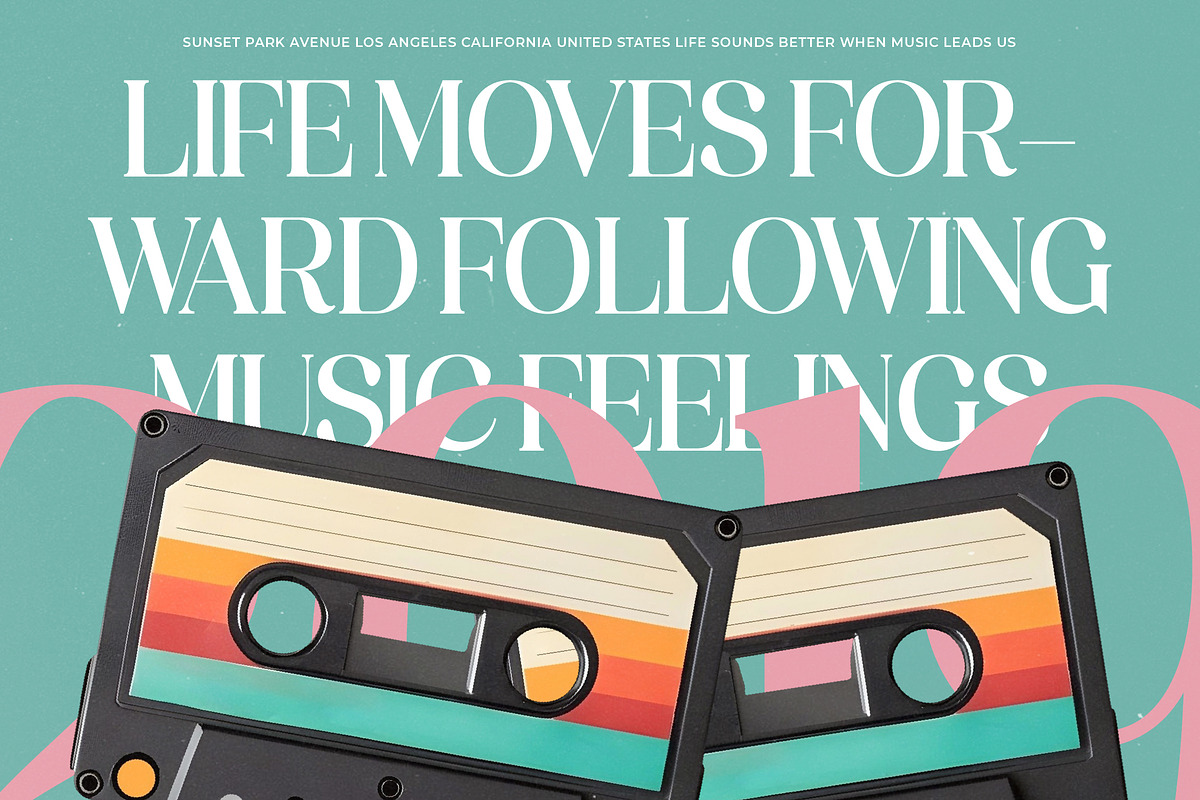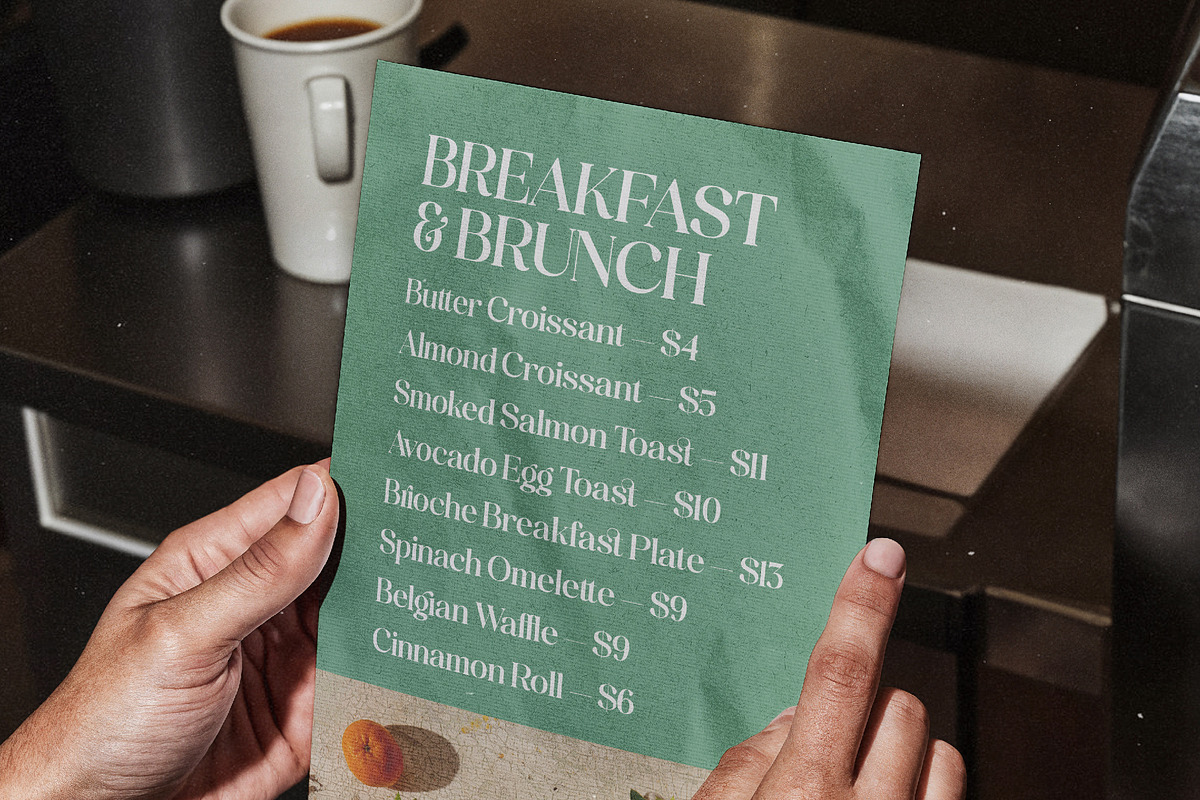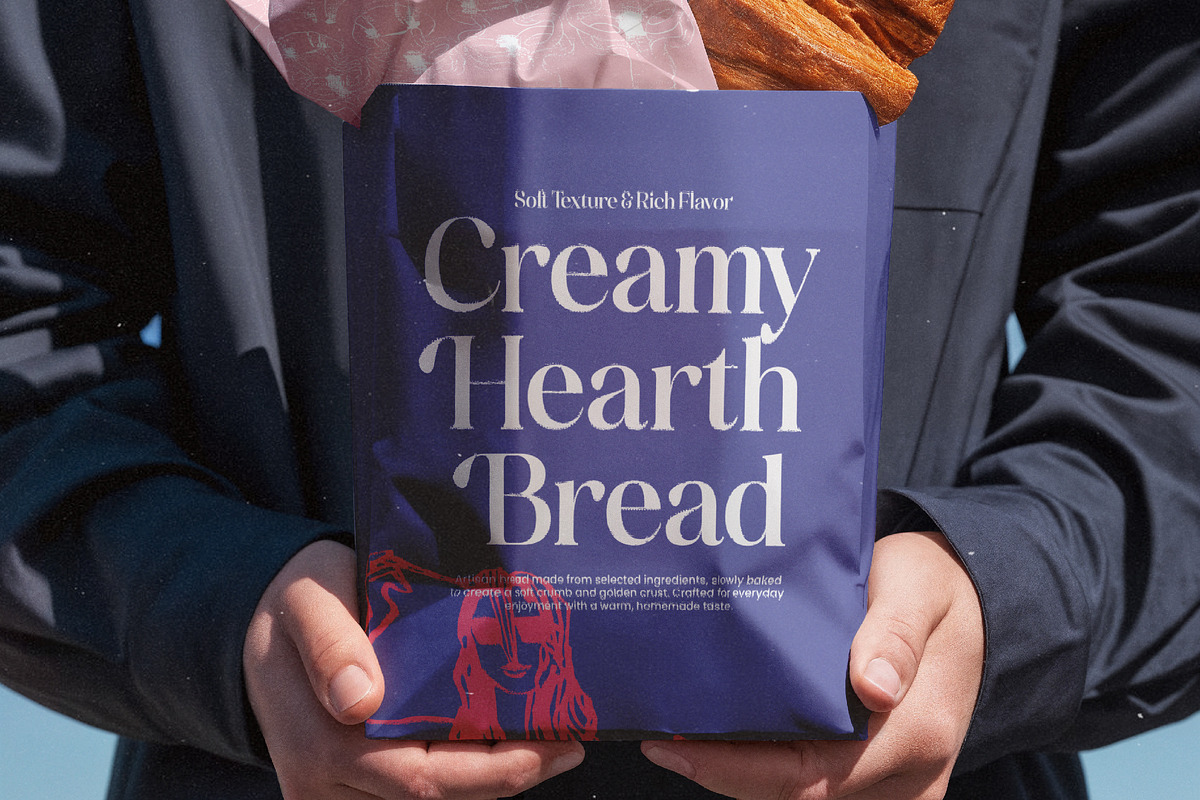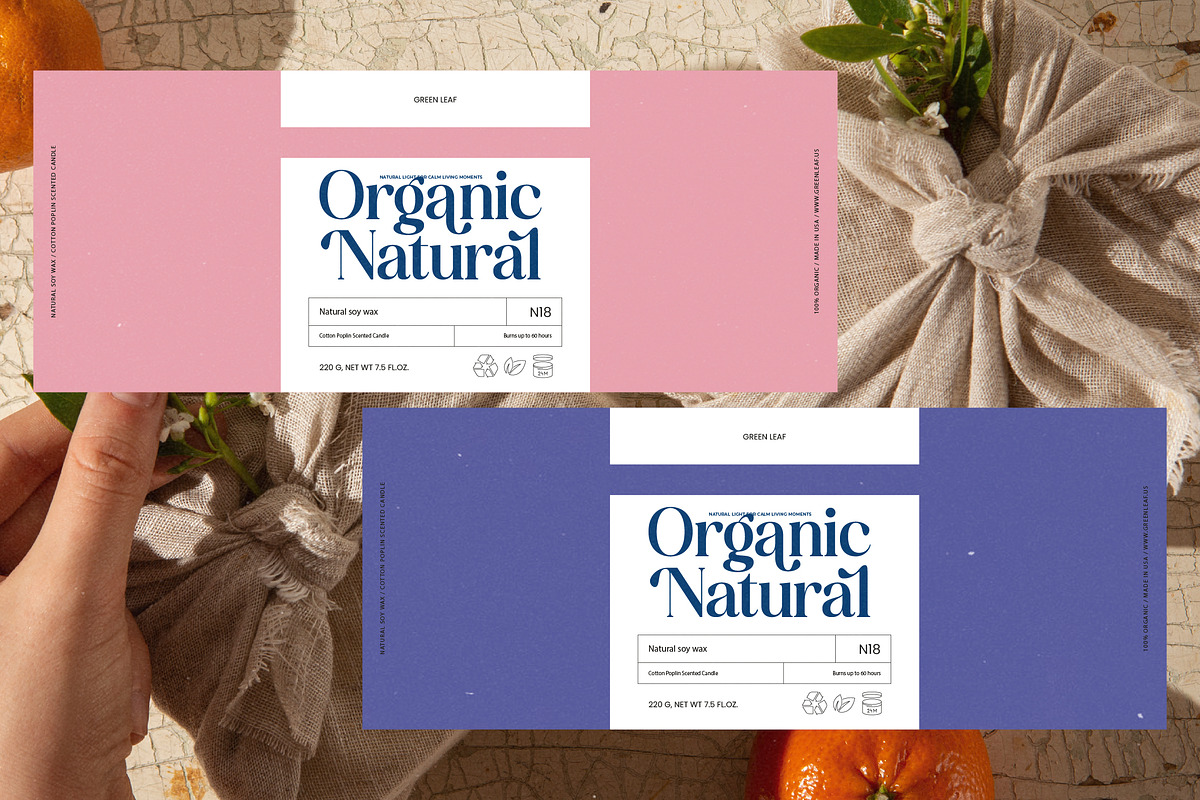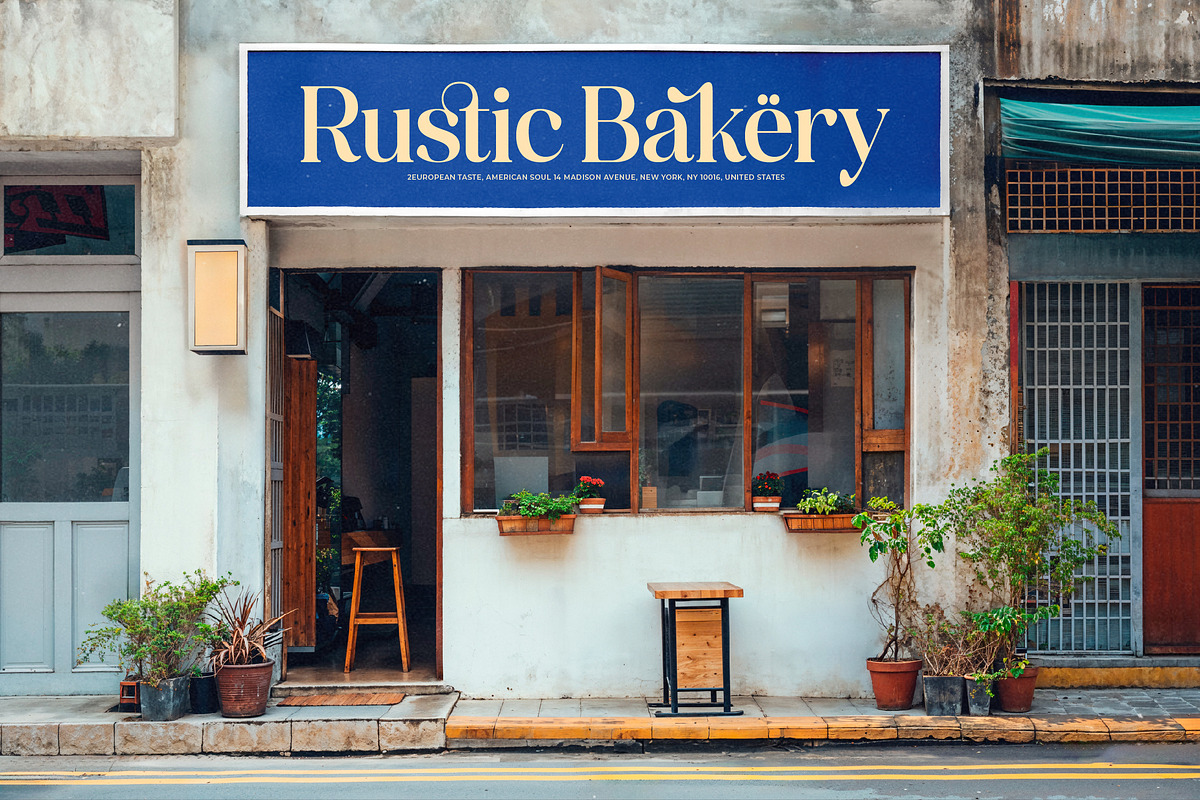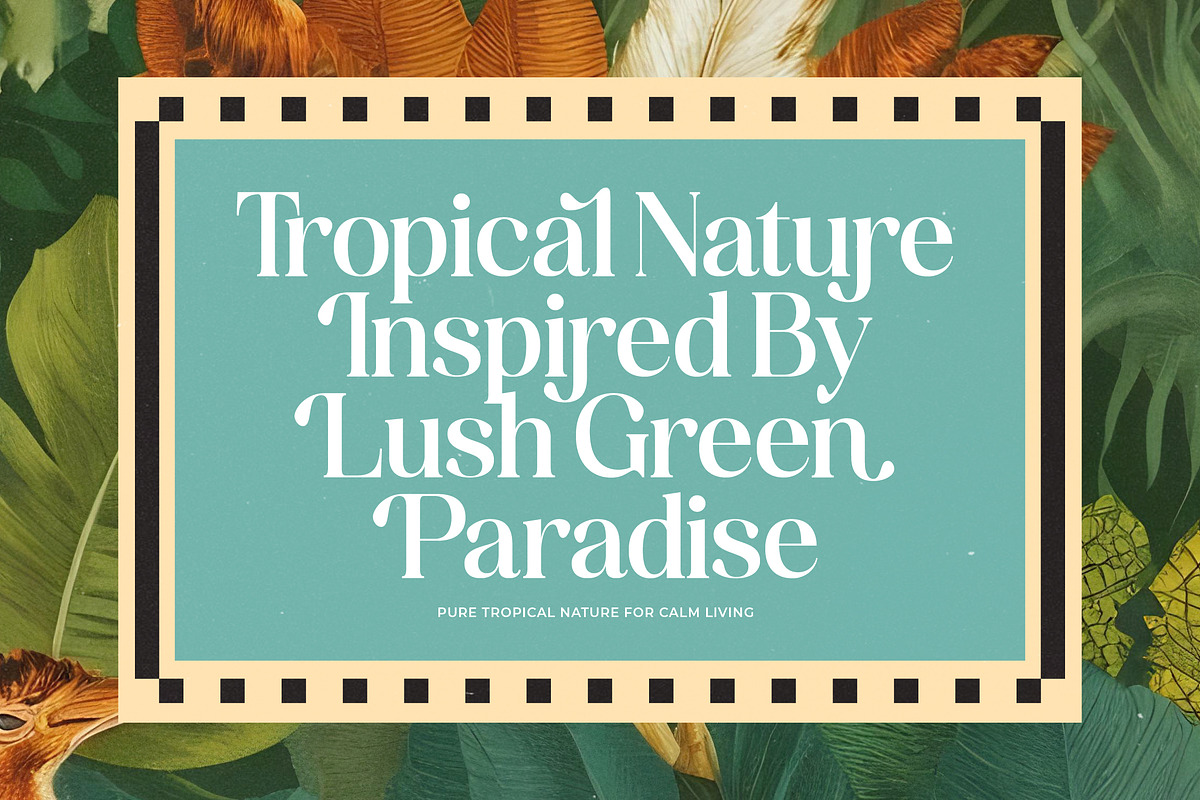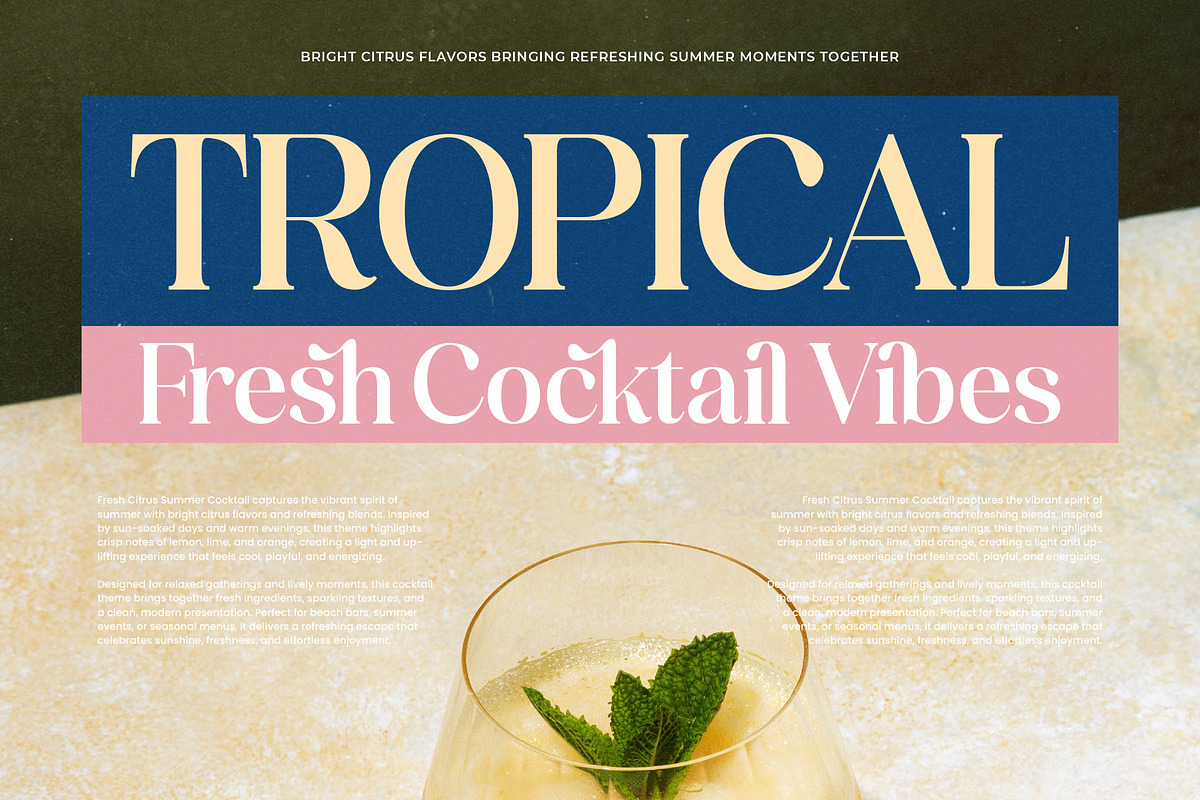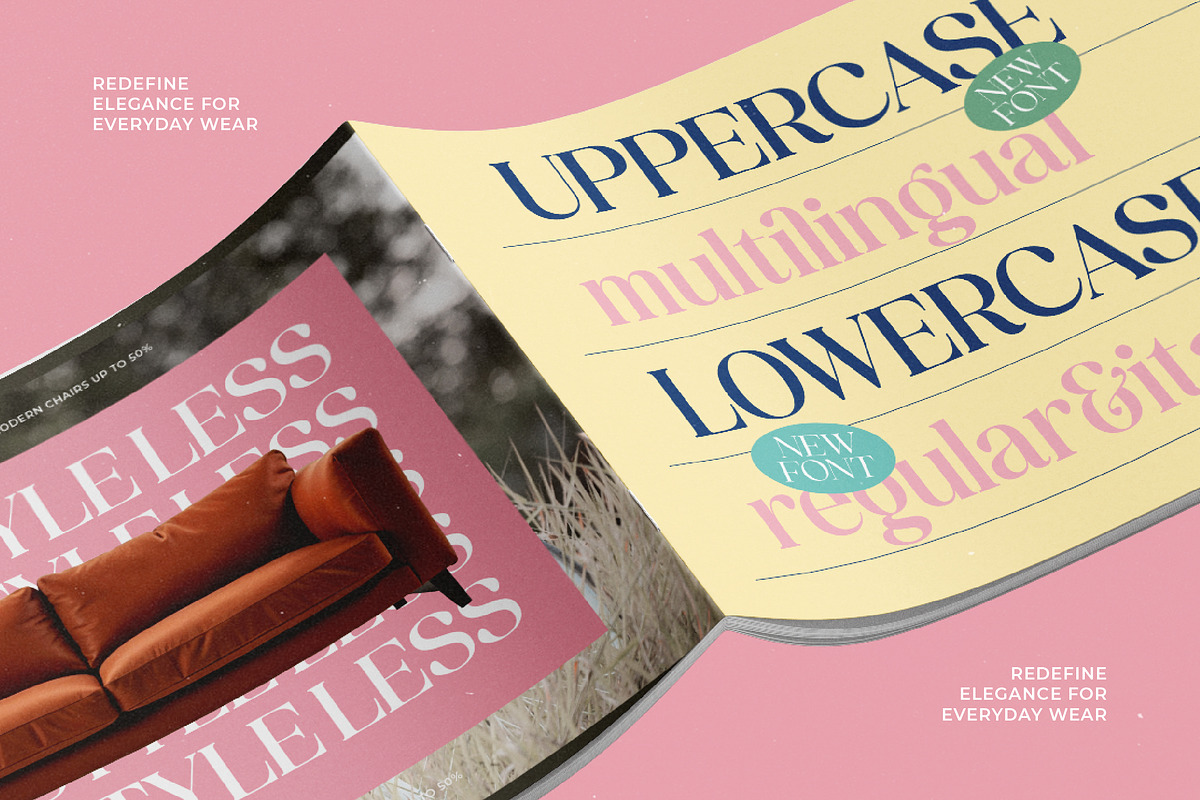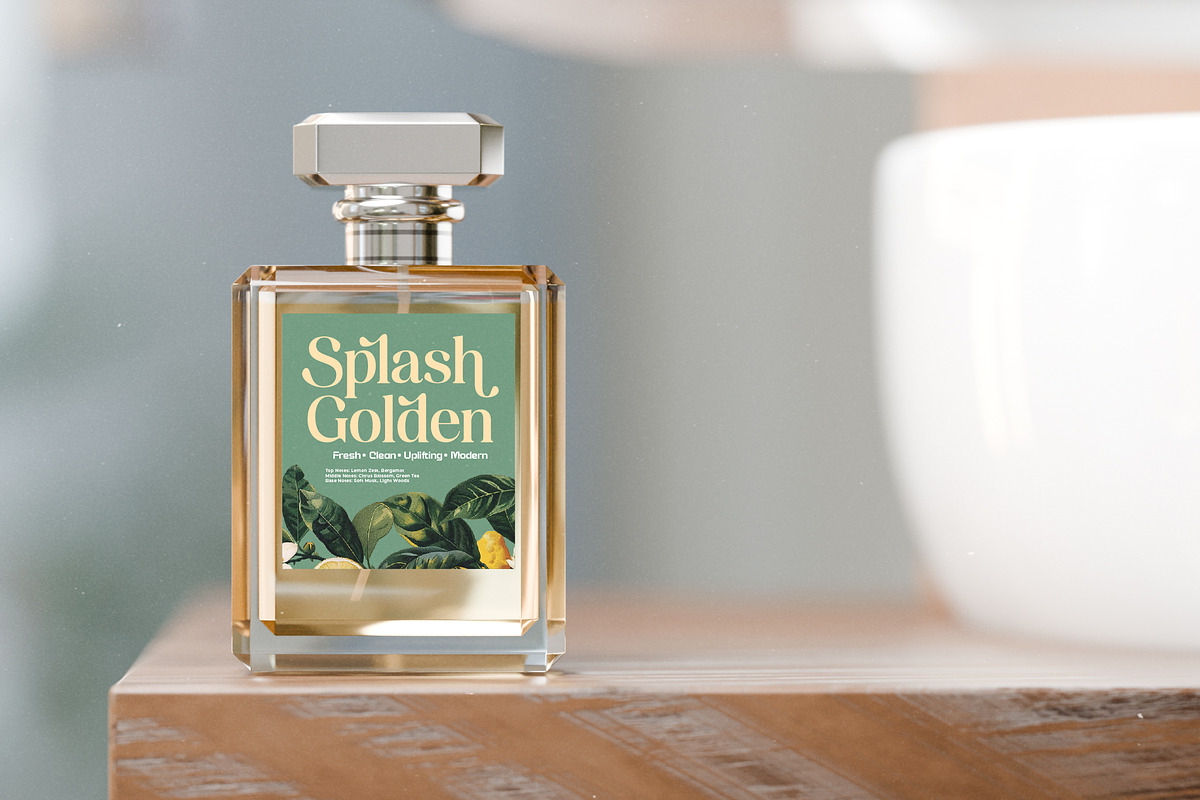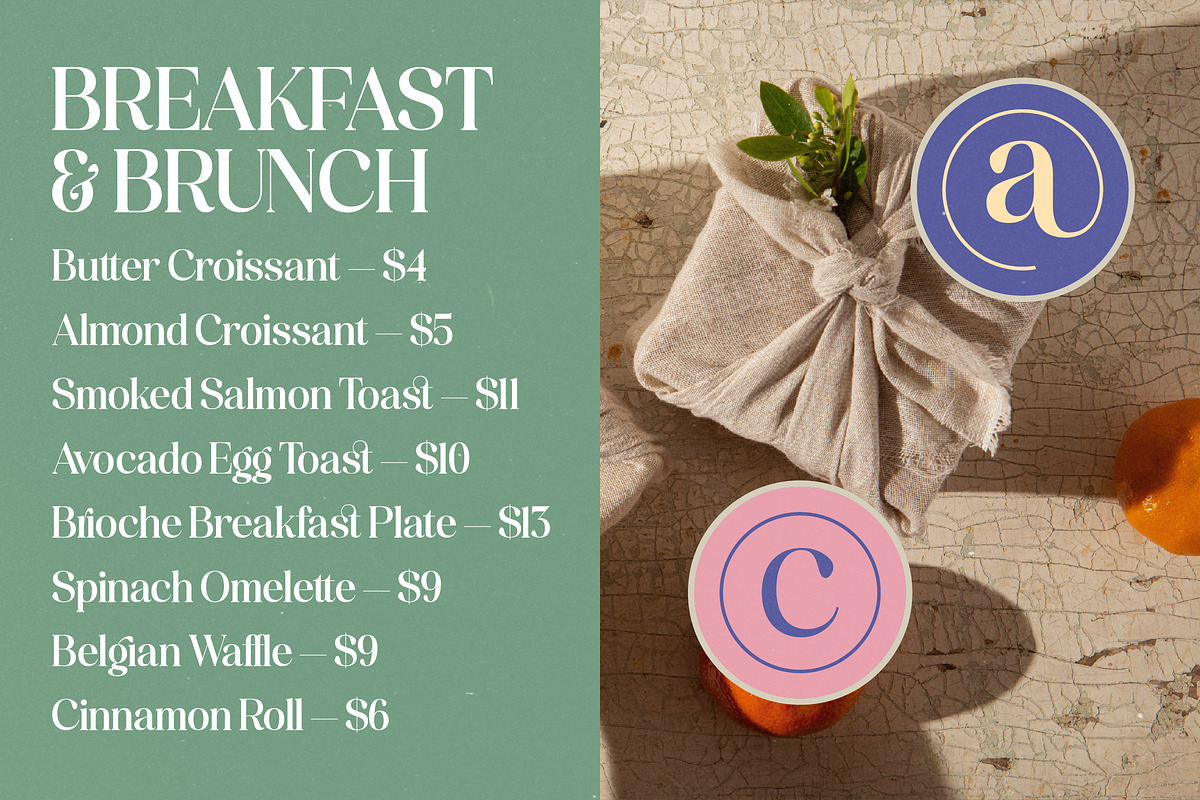
America Nights Modern Serif Font
Elevate your creative vision with the timeless elegance of America Nights, a typeface designed to leave a lasting impression in any visual context. This font strikes the perfect balance between classic sophistication and contemporary flair, making every word feel like a curated statement piece.
Drawing inspiration from the rhythmic glow of city lights and the refined atmosphere of high-end lounge culture, this typeface captures a distinct sense of nocturnal luxury. Its fluid lines and intentional curves reflect a world of high-end aesthetics where every detail is meticulously crafted for superior visual storytelling.
This modern serif display is defined by its striking luxury typography and high-contrast serif strokes that command instant attention in any layout. Designed as a premium editorial font with significant branding impact, it offers a graceful silhouette that transforms standard text into a sophisticated work of art.
Perfectly aligned with the current modern serif trend, this typeface meets the growing demand for editorial display fonts that feel both nostalgic and forward-thinking. It embraces the industry shift toward character-driven typography, allowing designers to break away from sterile designs and infuse their work with soul and personality.
Whether you are working on a high-end logo design or a comprehensive branding identity, this font delivers versatility across editorial spreads and luxury packaging. It is an ideal choice for wedding invitations that require a touch of class and fashion lookbooks seeking a couture-inspired typographic edge.
Enhance your compositions using the extensive range of ligatures and creative alternates that allow for bespoke letter pairings and unique swashes. With full multilingual support and a wide array of international characters, this font ensures your message resonates globally without losing its aesthetic integrity.